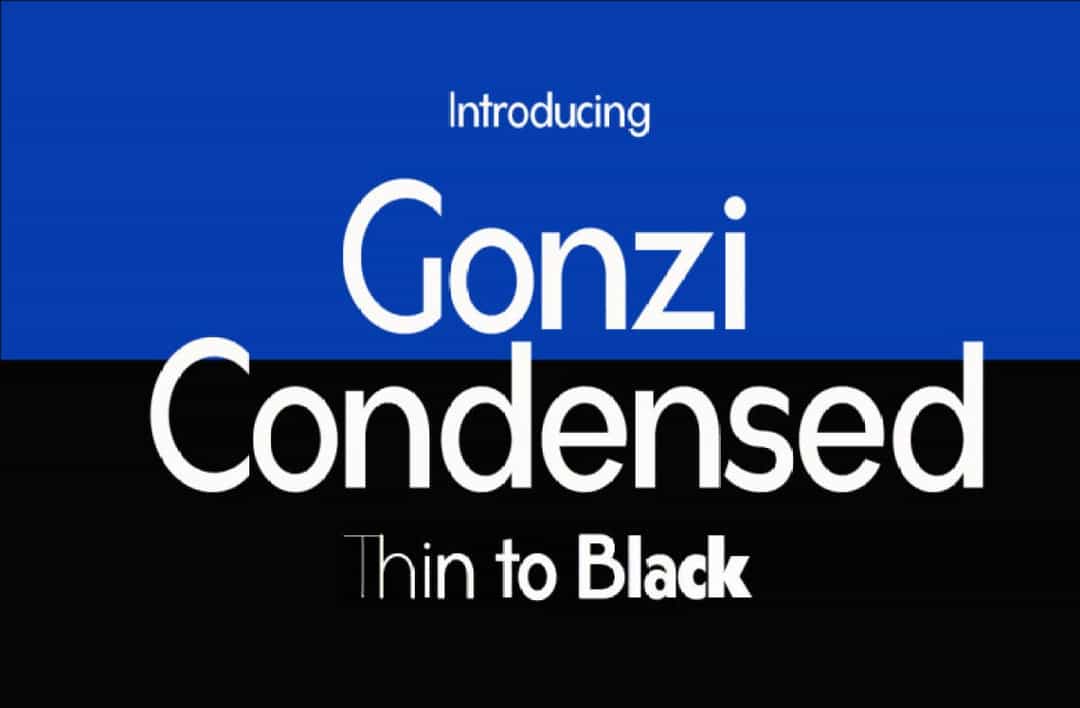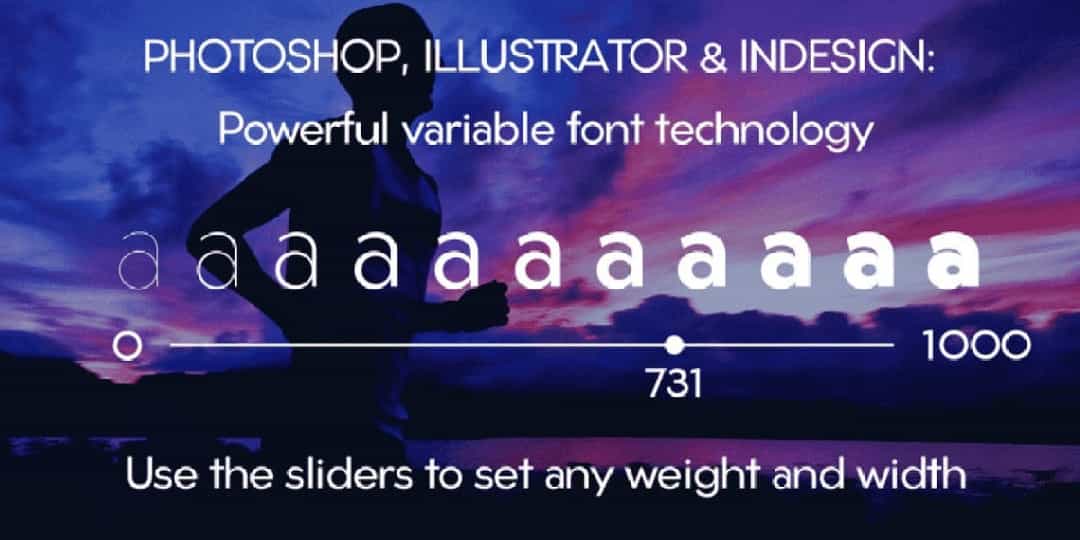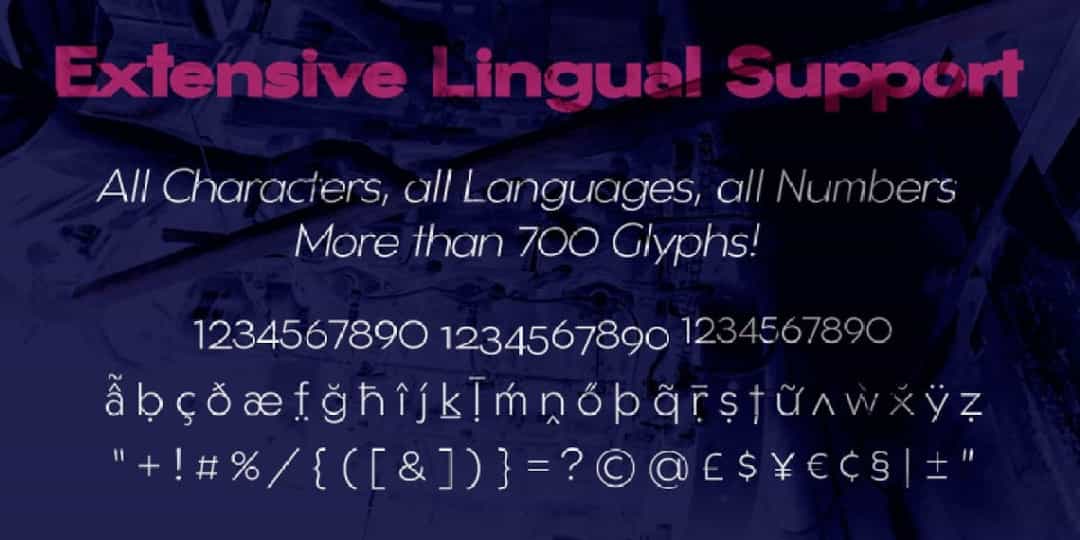
Gonzi Condensed is a contemporary sans serif typeface family that comes in five weights ranging from black to thin and five Italic styles. With circular lowercase letters and large, expressive capitals creating a contemporary yet straightforward stylesetting. Use Illustrator, Photoshop or InDesign’s sliders to set weight and size settings accordingly.